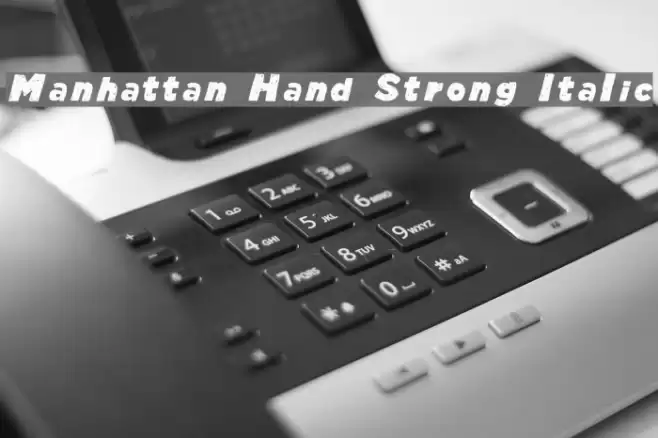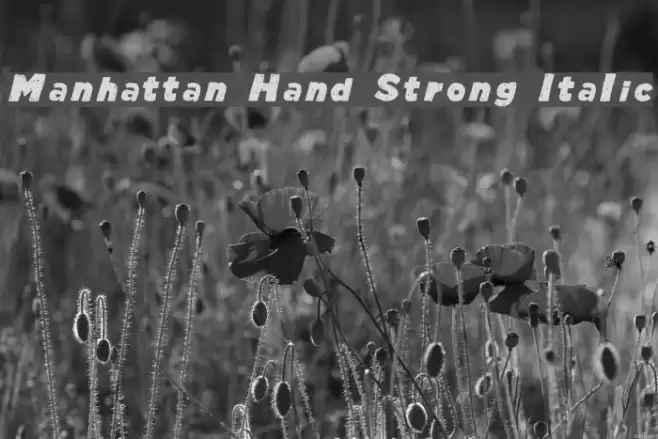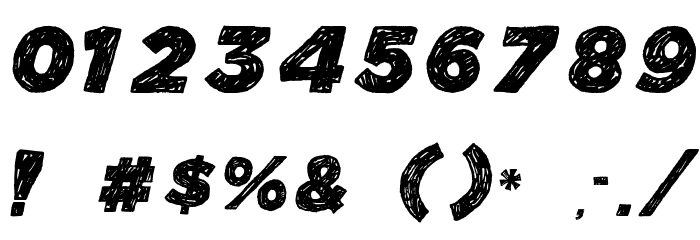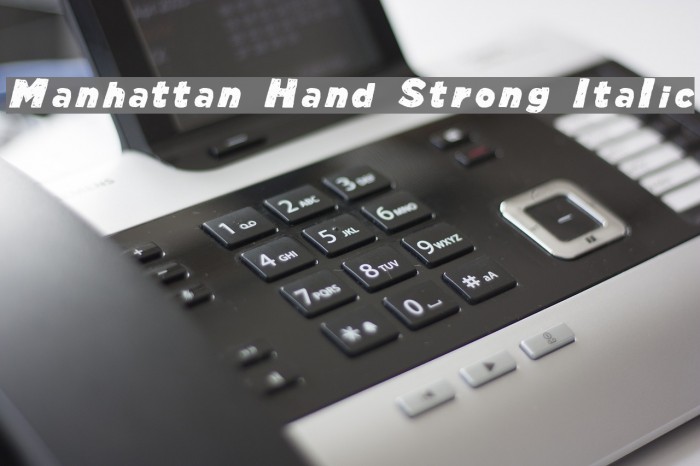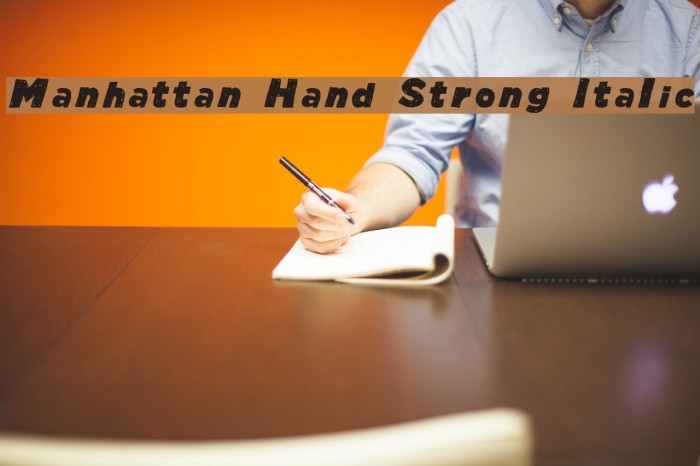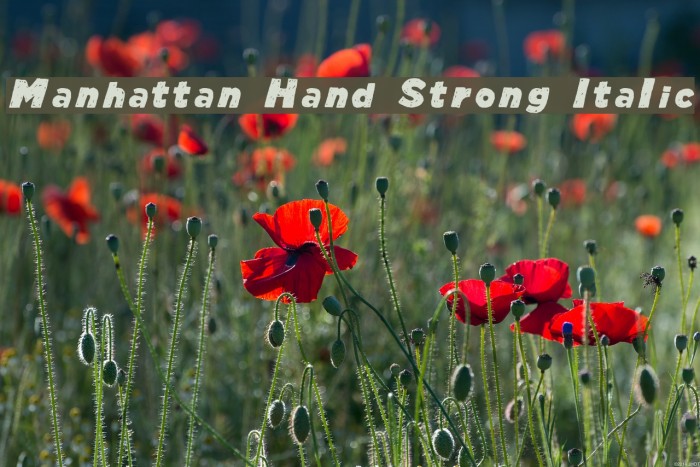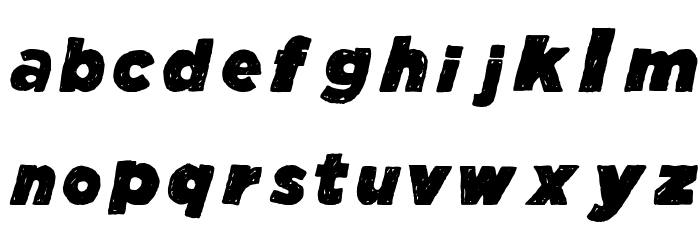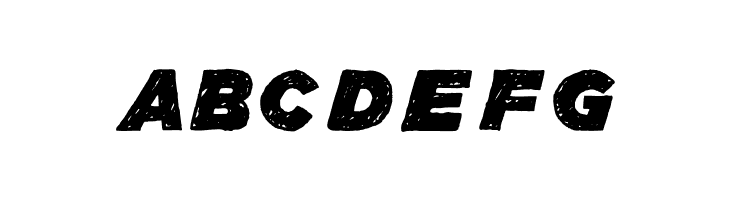
Manhattan Hand Strong Italic Font
Manhattan Hand Strong Italic Description
This font features a bold and dynamic style with a strong italic slant, giving it a sense of movement and energy. The characters are designed with a rough, textured appearance, adding a hand-drawn, artistic feel. The uppercase and lowercase letters are consistent in their boldness, while the numbers and special characters maintain the same textured style. This font's unique characteristics make it stand out, offering a creative and expressive look suitable for various design projects.
A bold, textured, and italic font with a hand-drawn style from Distorted Eroded fonts.